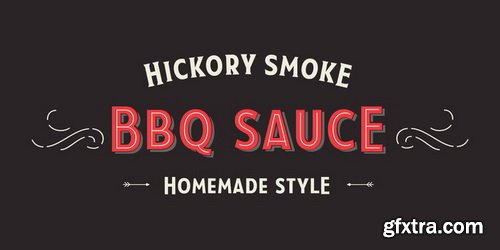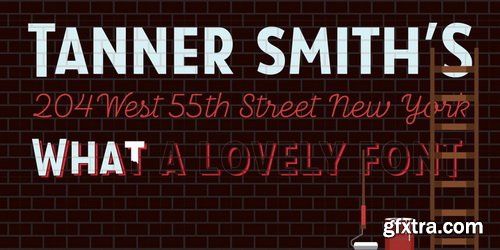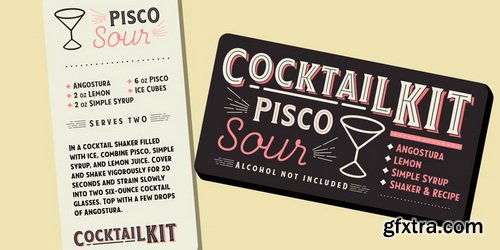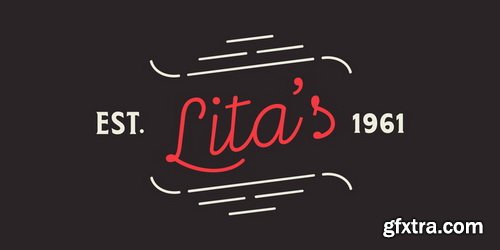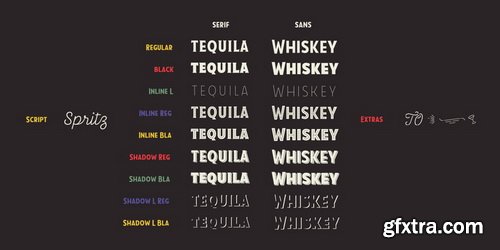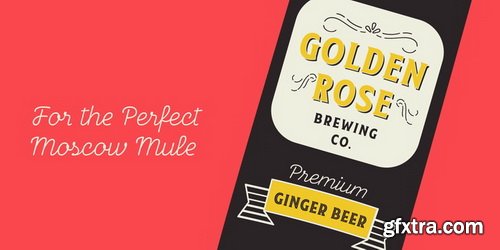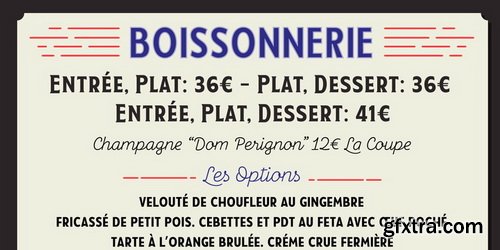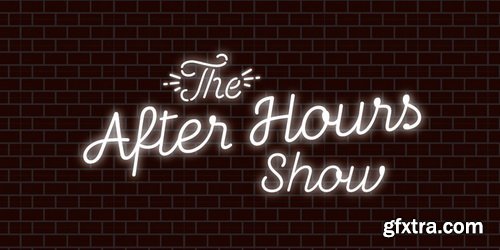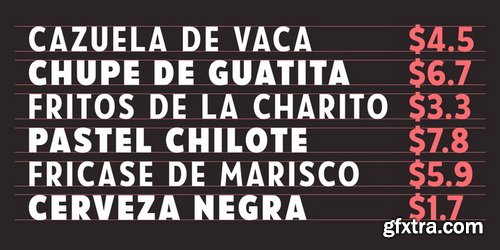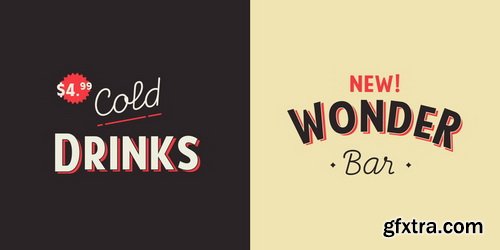
Taberna is a type system that provides a wide range of choices for any design project. The typeface comes in Sans and Serif layered versions plus a monolinear Script font.Taberna is the result of having explored design trends in bar signage, liquor packaging and street wear. Taberna is a funny display font with a Sans version—that provides a more clean and simple design—and a Serif one, which gives text a more distinctive and sombre personality. The Script version matches perfectly with the heavy Caps of the typeface. Taberna is a very versatile font well-suited for headlines, posters, logotypes, etc.